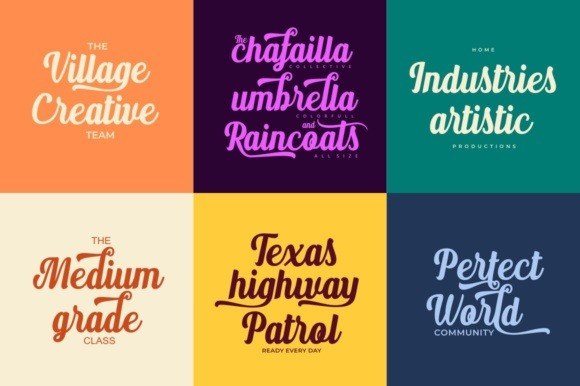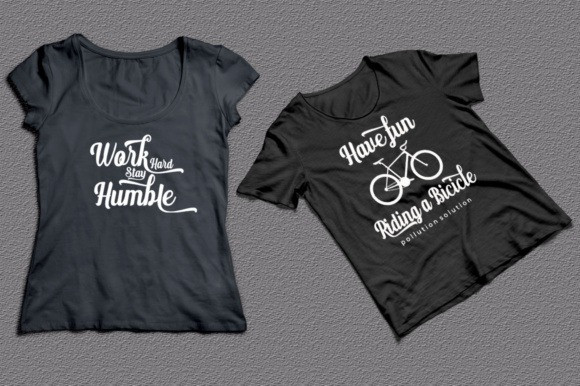
Amarilis Script
Amarilis Handwritten Font
Amarilis Script Font
Introducing the Amarilis Handwritten Font; A stylish & modern & script typefaces.Amarilis offers beautiful contrasting typography for a diversity of design projects, including; logos & branding, packaging design, social media posts, advertisements & product designs.